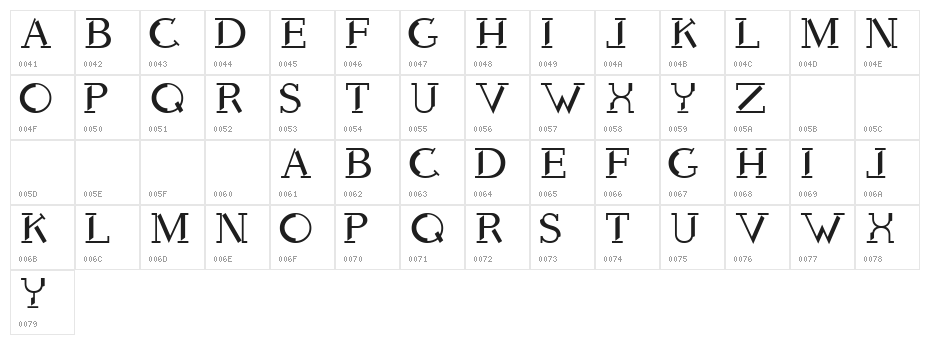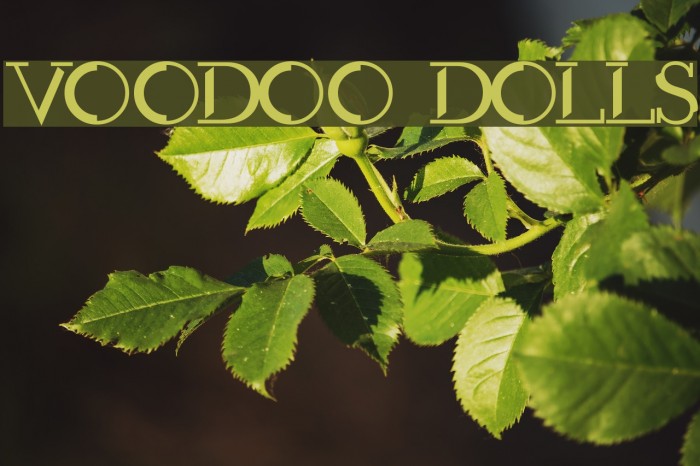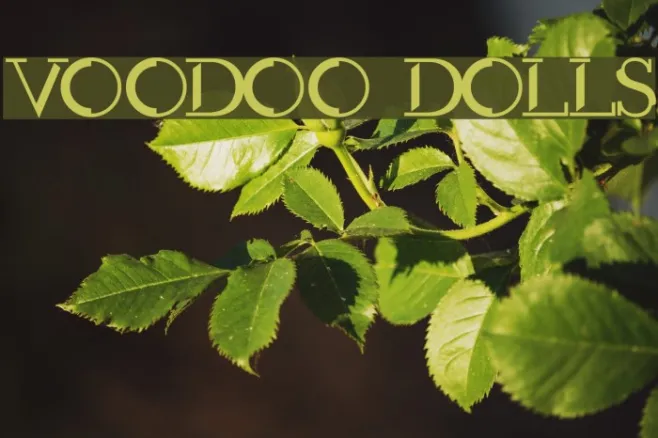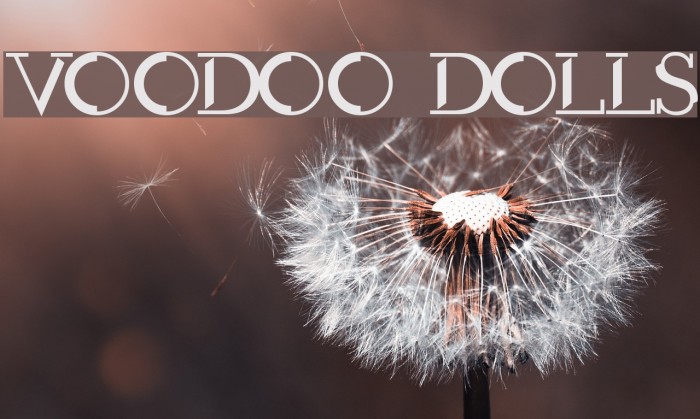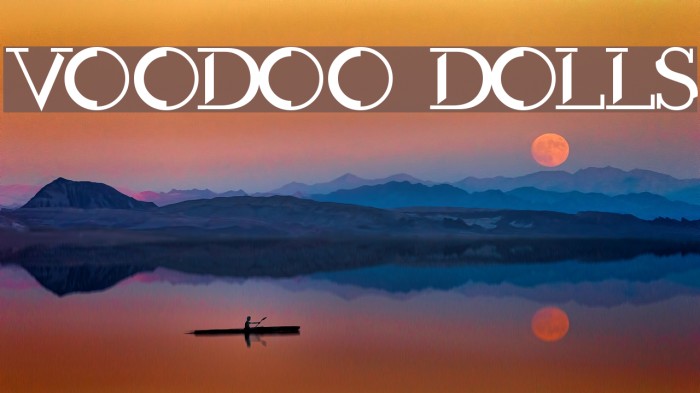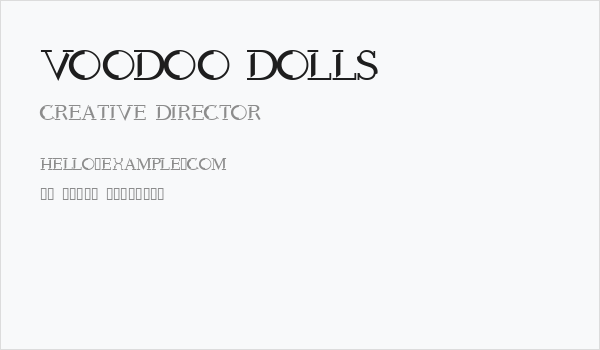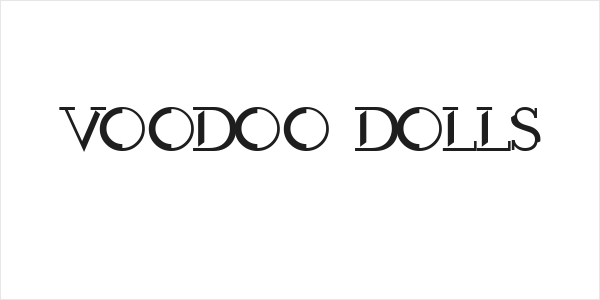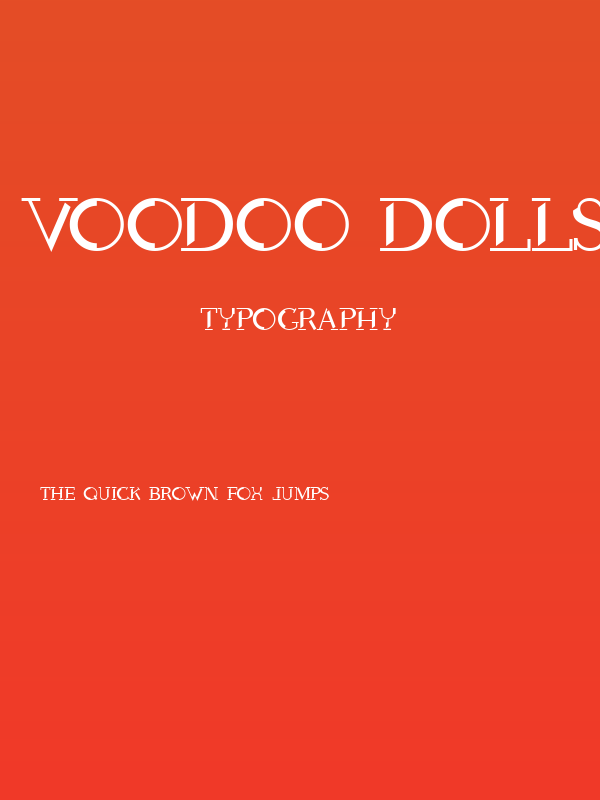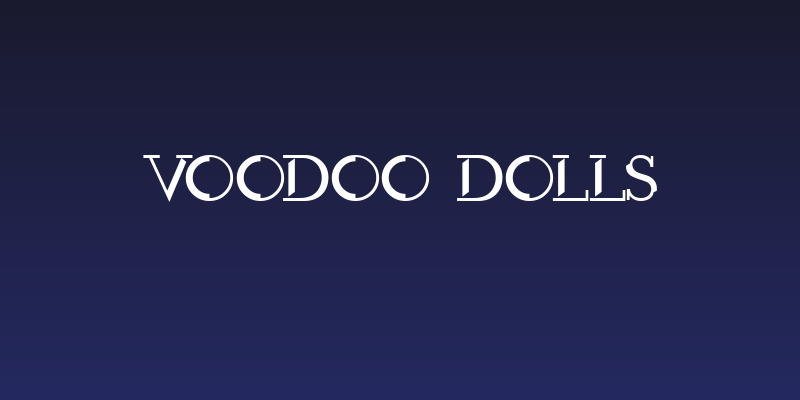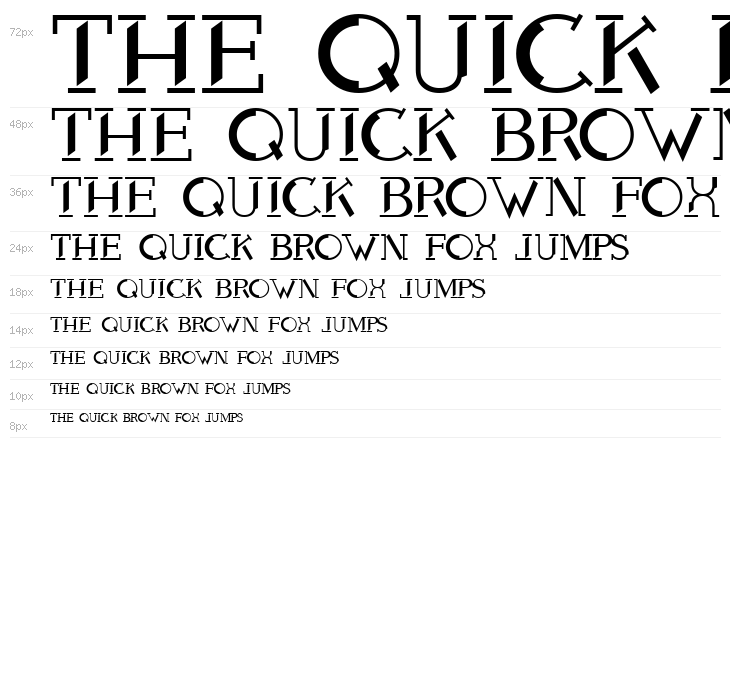
Voodoo Dolls Font
Voodoo Dolls Description
This font features a bold and striking design with a unique cut-out style that gives it a modern and edgy appearance. The uppercase letters are characterized by sharp angles and geometric forms, creating a sense of movement and dynamism. The lowercase letters maintain the same boldness and geometric style, ensuring consistency throughout. The numbers and special characters follow the same design principles, making them easily recognizable and visually appealing. The overall look is both contemporary and artistic, making it suitable for projects that require a strong visual impact.